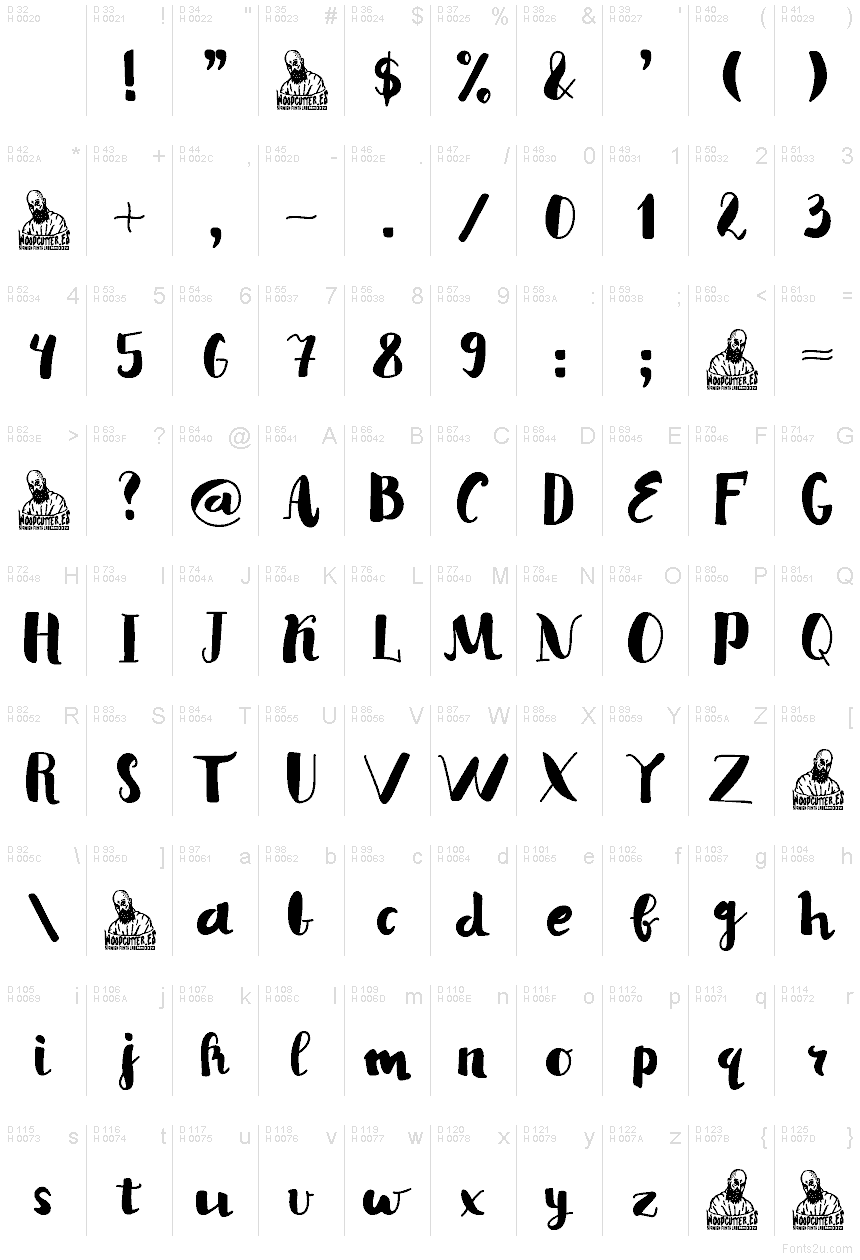
Mary Puri Nails
Mary Puri Nails font by Woodcutter is an elegant brush typeface distinguished by its bold, flowing, and expressive style. Embodying classic-inspired aesthetics, this stylish font combines balance and dynamic movements in its strokes to create remarkable figures that are exactly what you need to upgrade your product’s visual appeal.
Use Mary Puri Nails for magazine titles, headlines on newspapers, brochures, marketing leaflets and flyers. This free handwritten font also works seamlessly in logo designs either alone or paired with serif fonts. It further excels as a branding font in packaging design due to its boldness and legibility.